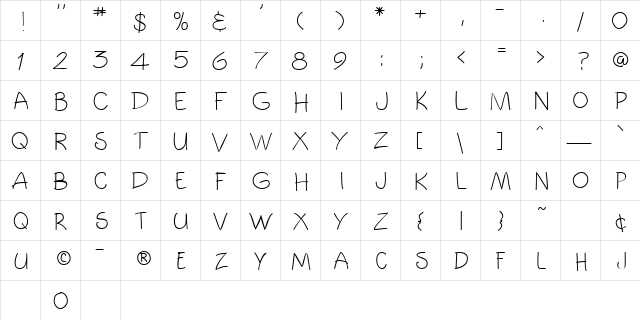
Toonz Regular
Design Context for Toonz Typeface
Toonz is a composed and adaptable typeface that performs quietly and consistently across a wide range of design contexts.